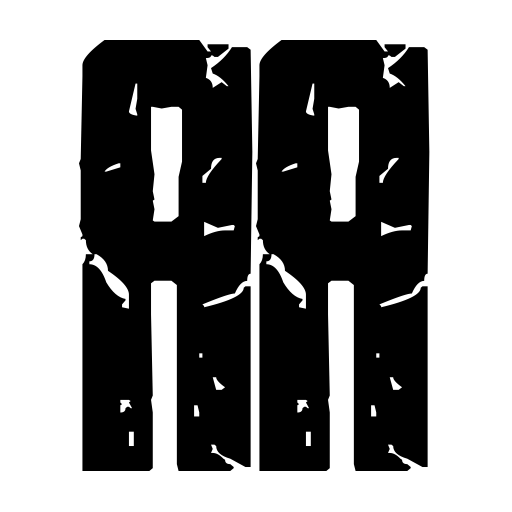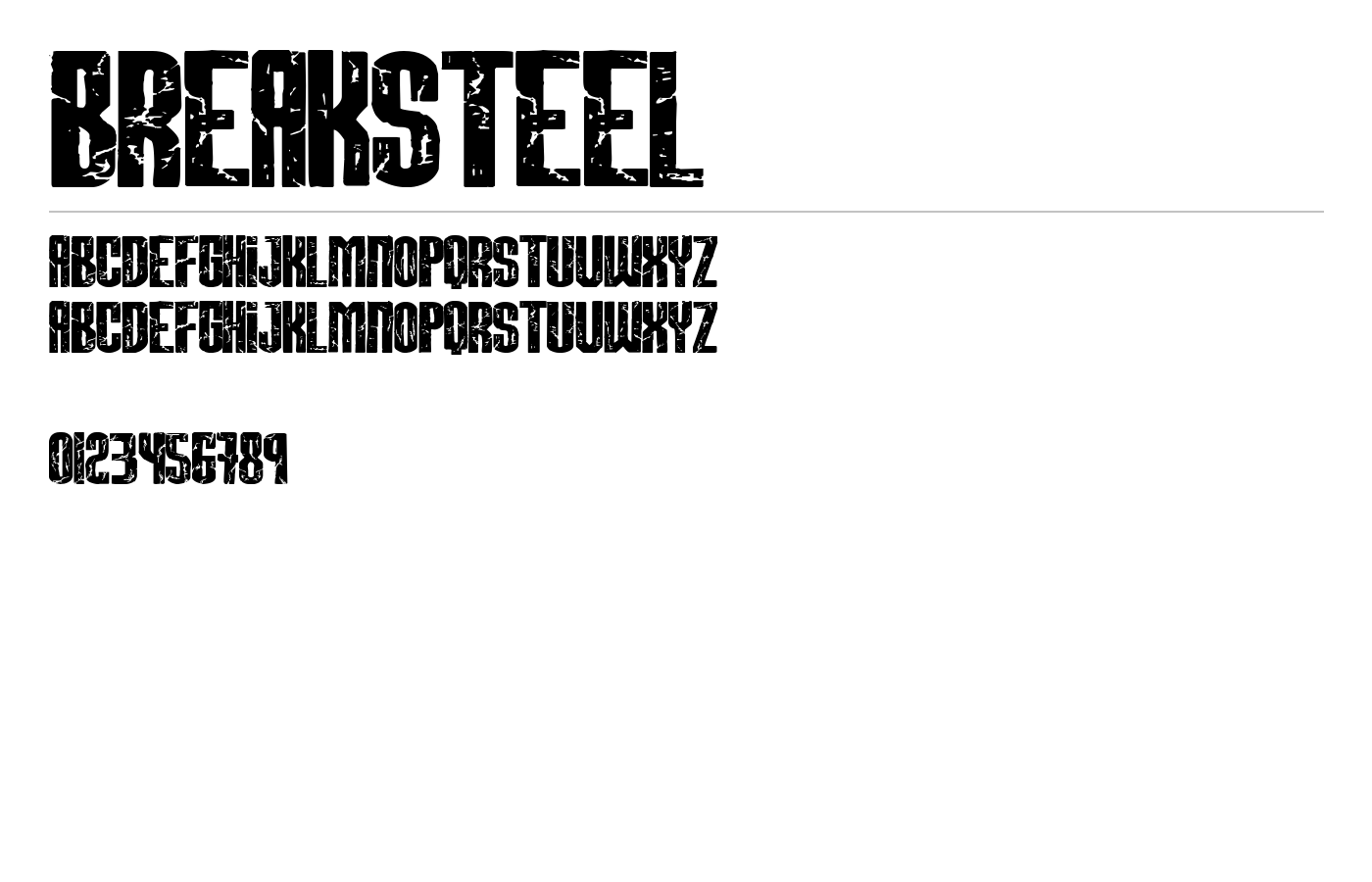
BREAKSTEEL is a bold, condensed sans serif font with a distressed, grungy texture that gives it a rugged and industrial feel. Its strong, blocky letterforms and rough edges make it perfect for creating powerful, attention-grabbing headlines, logos, and designs with a tough, rebellious personality. This font works especially well in contexts like posters, branding for extreme sports or music, and any project that needs a raw, edgy vibe.
BREAKSTEEL Font
About BREAKSTEEL Font
| Font family | BREAKSTEEL Font |